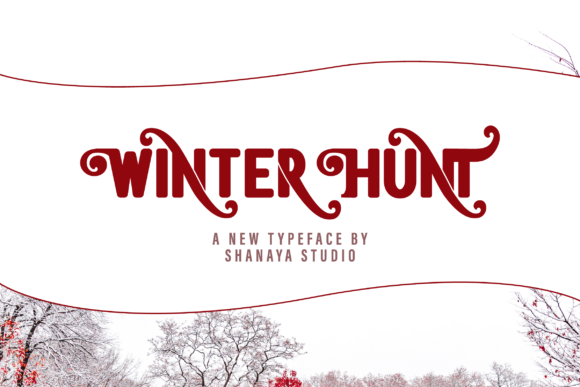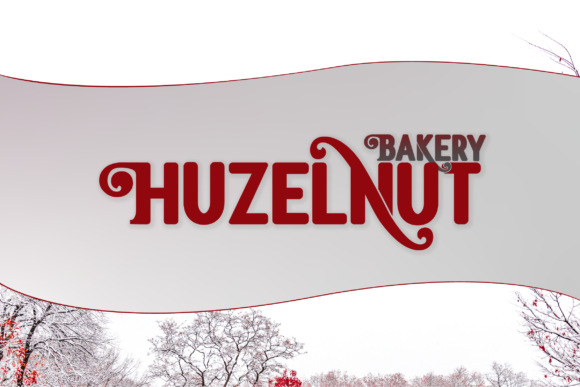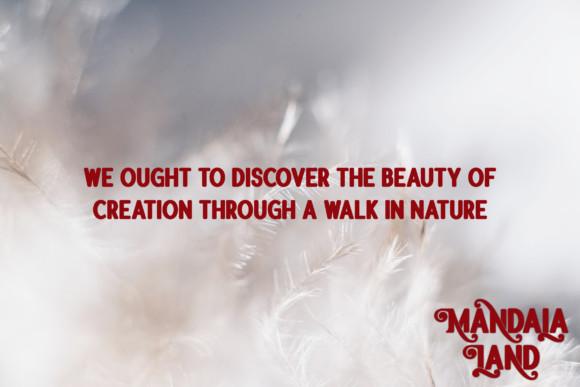
Winter Hunt Font
Winter Hunt is an upper and lowercase display font with nicely balanced curves. It is inspired by lettering from the good old past, but it still has a strong modern appearance. Its wide range of stylistic alternates allows versatile design options and works perfectly for headlines, logos, posters, packaging, T-shirts, postcards and much more.